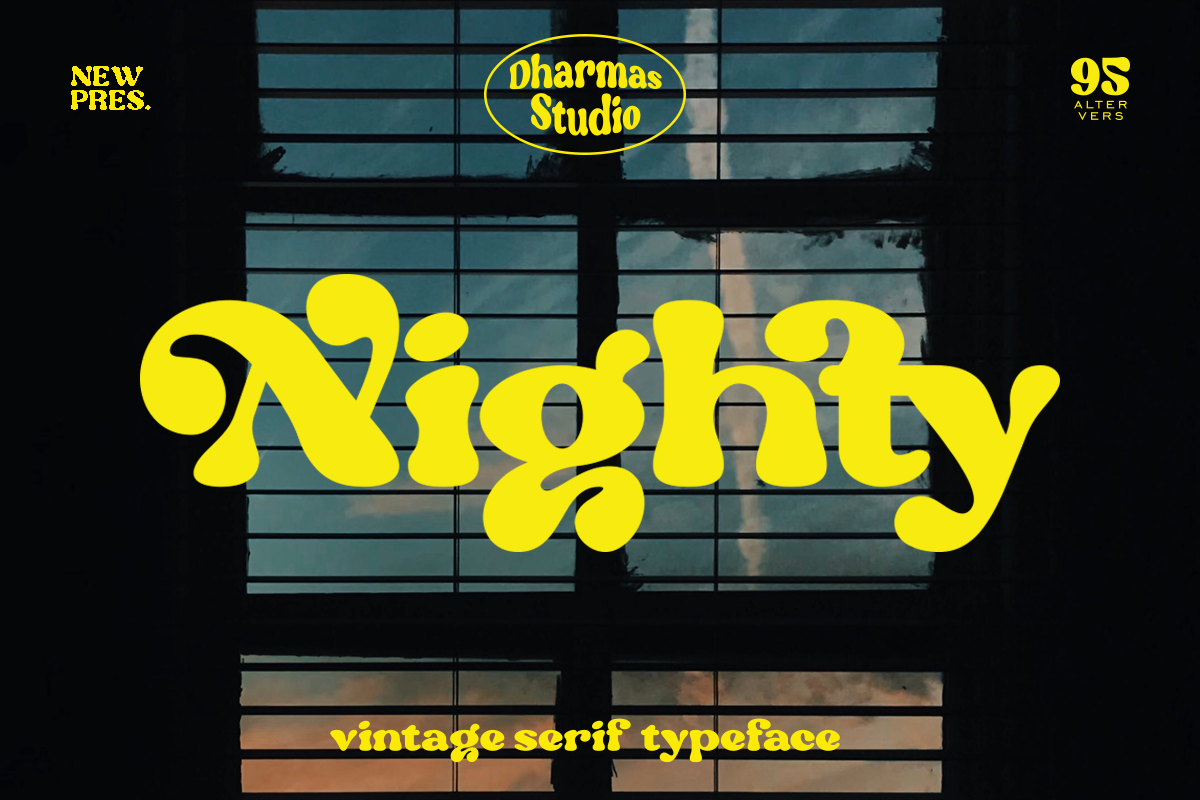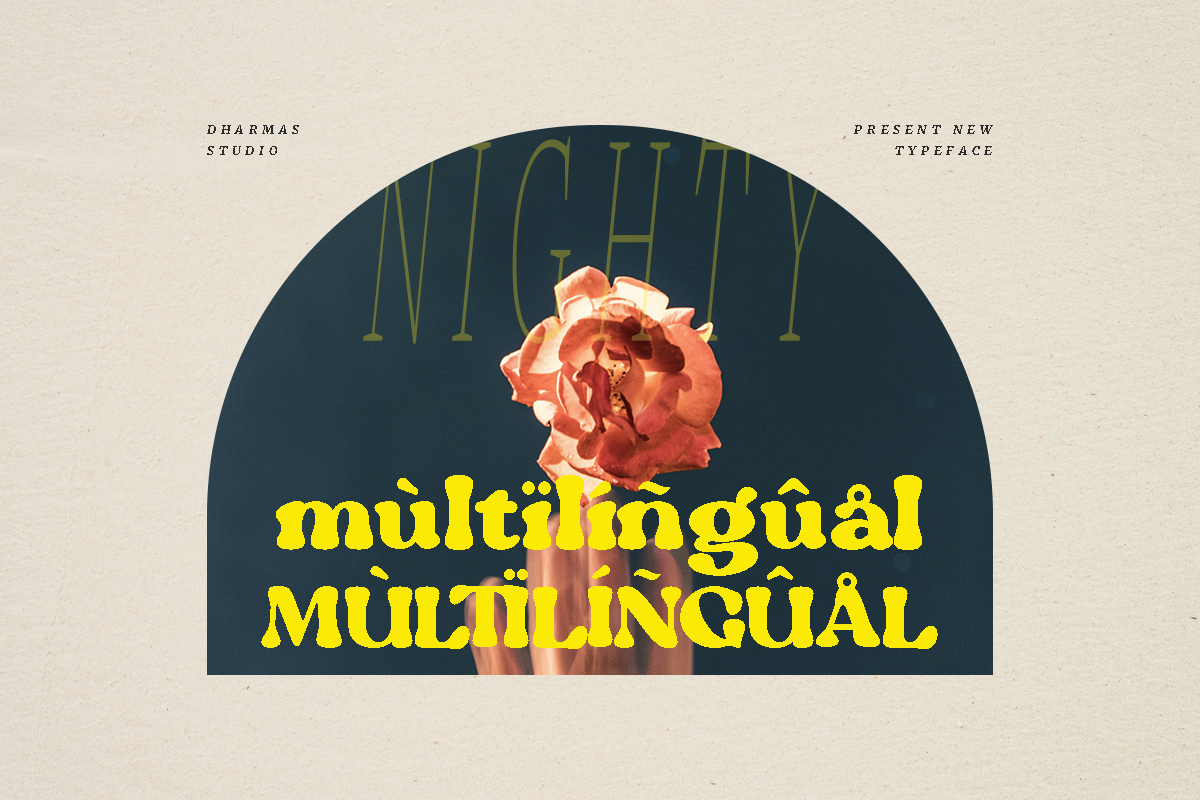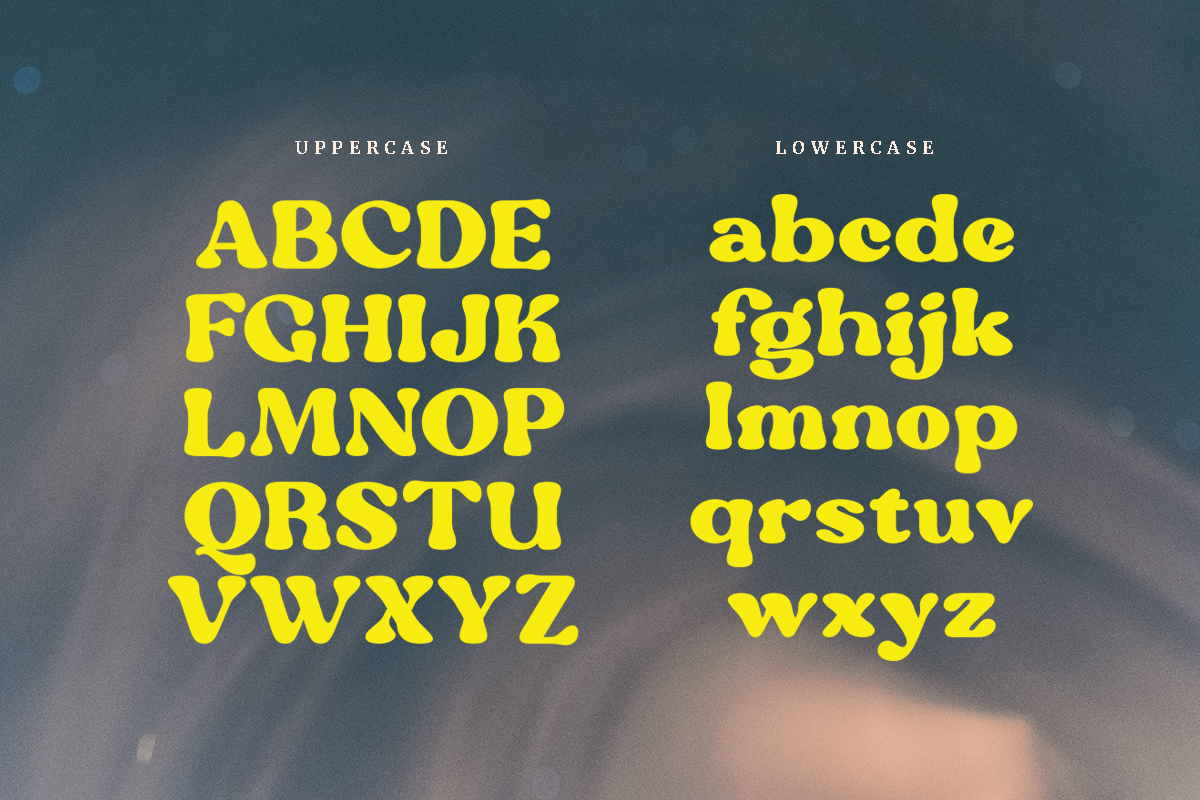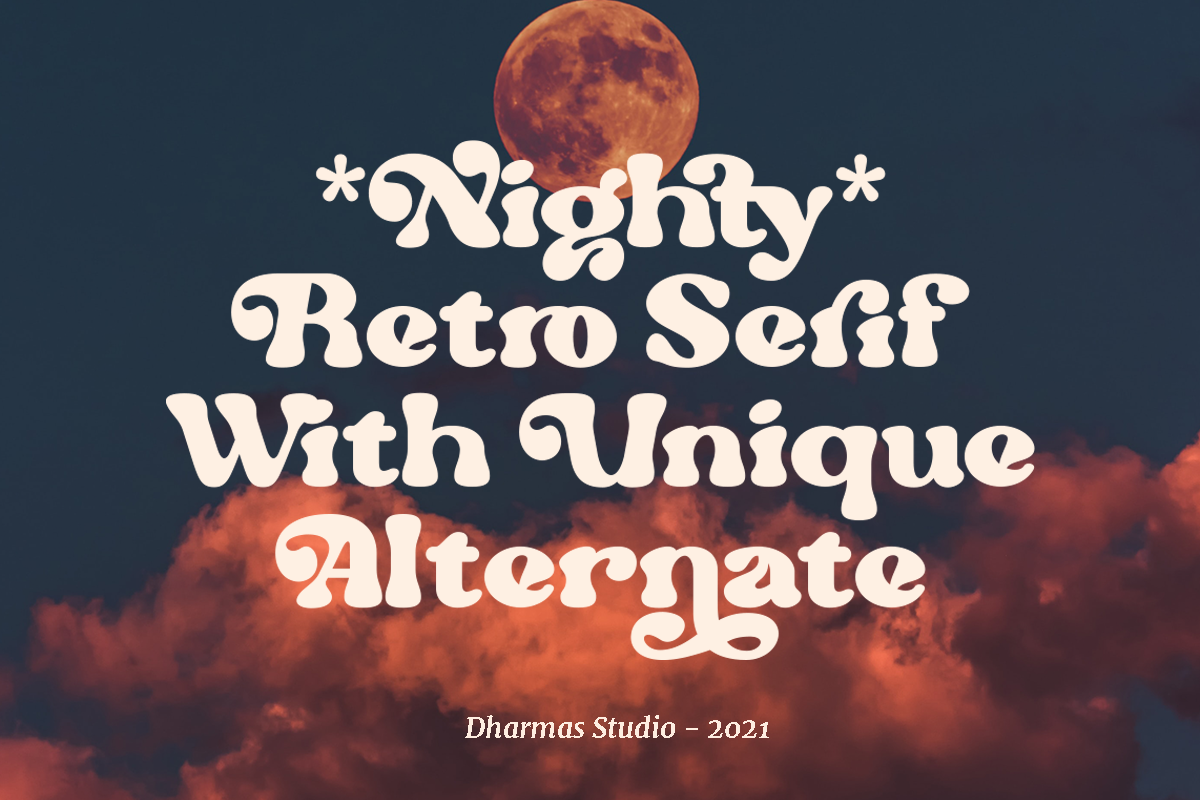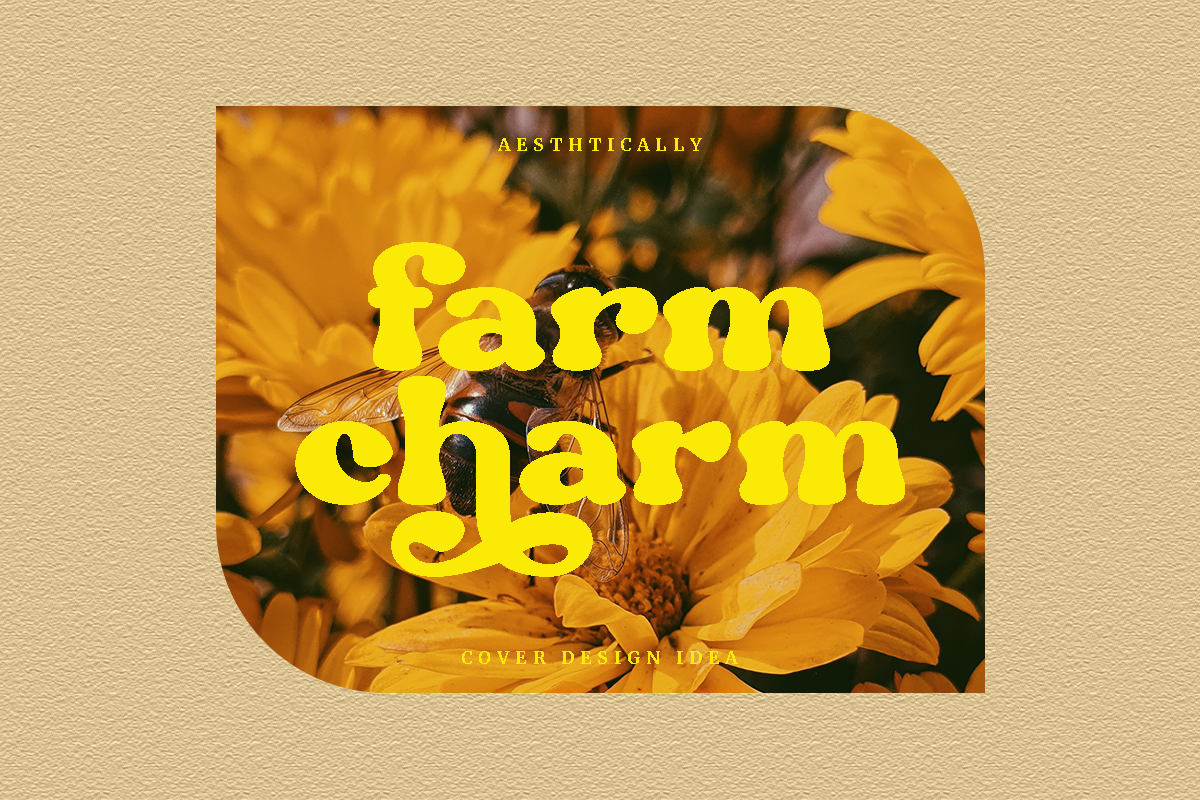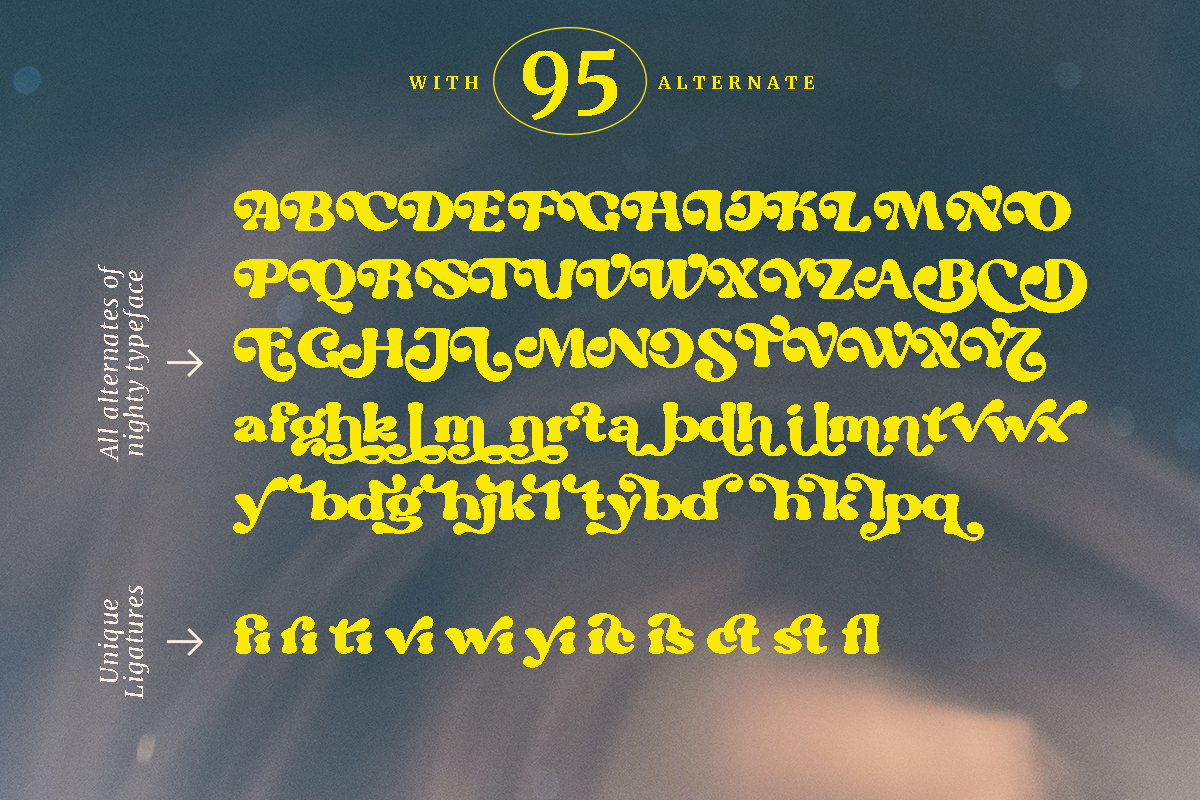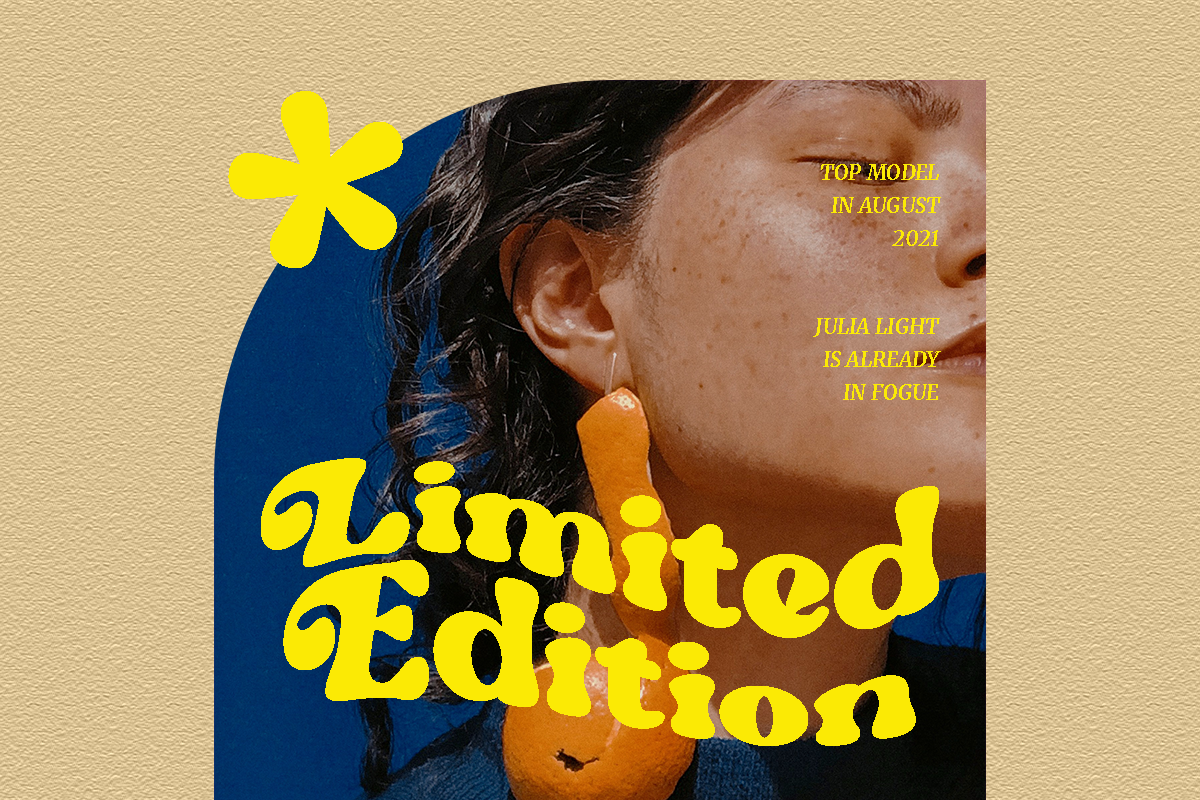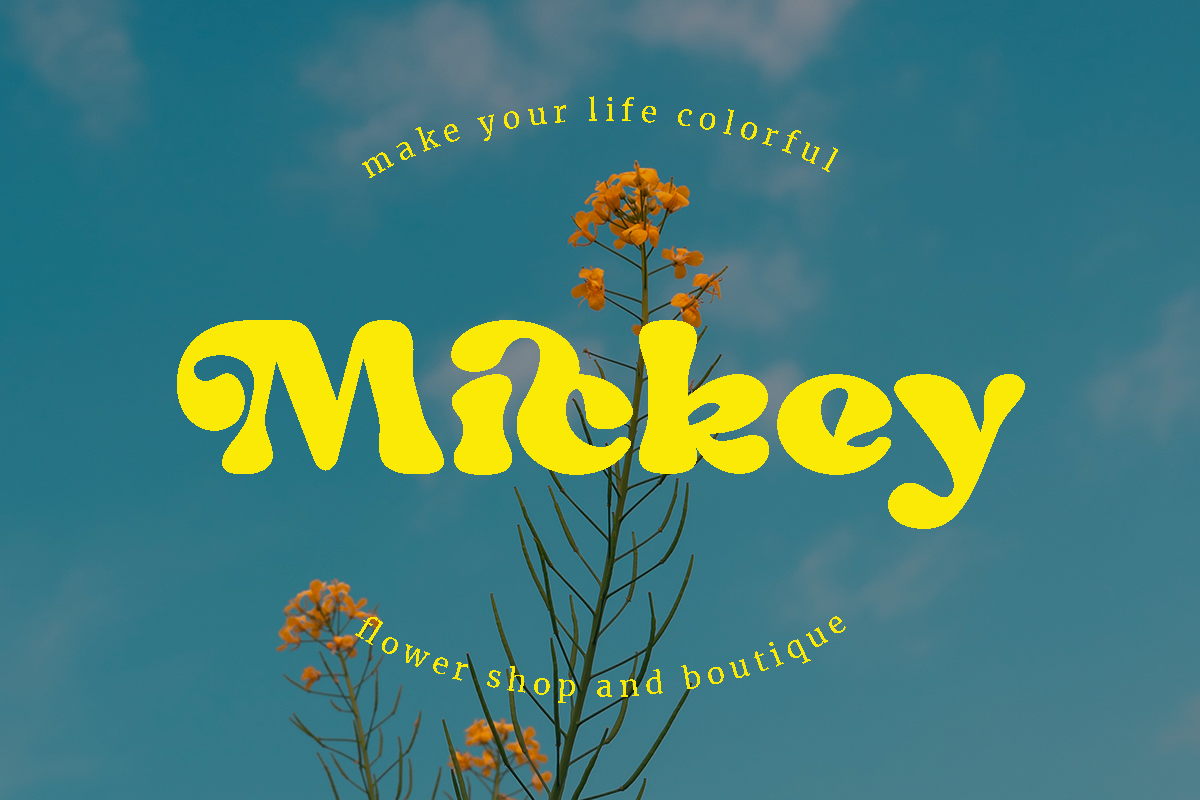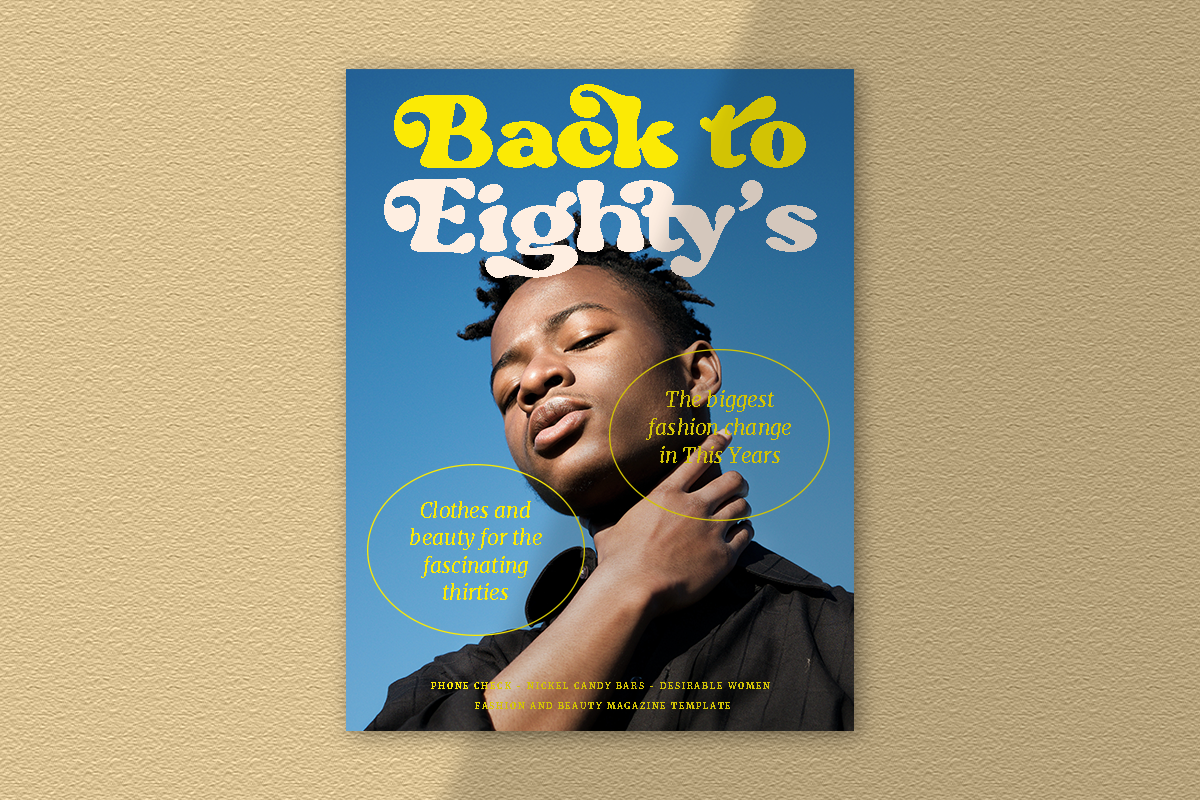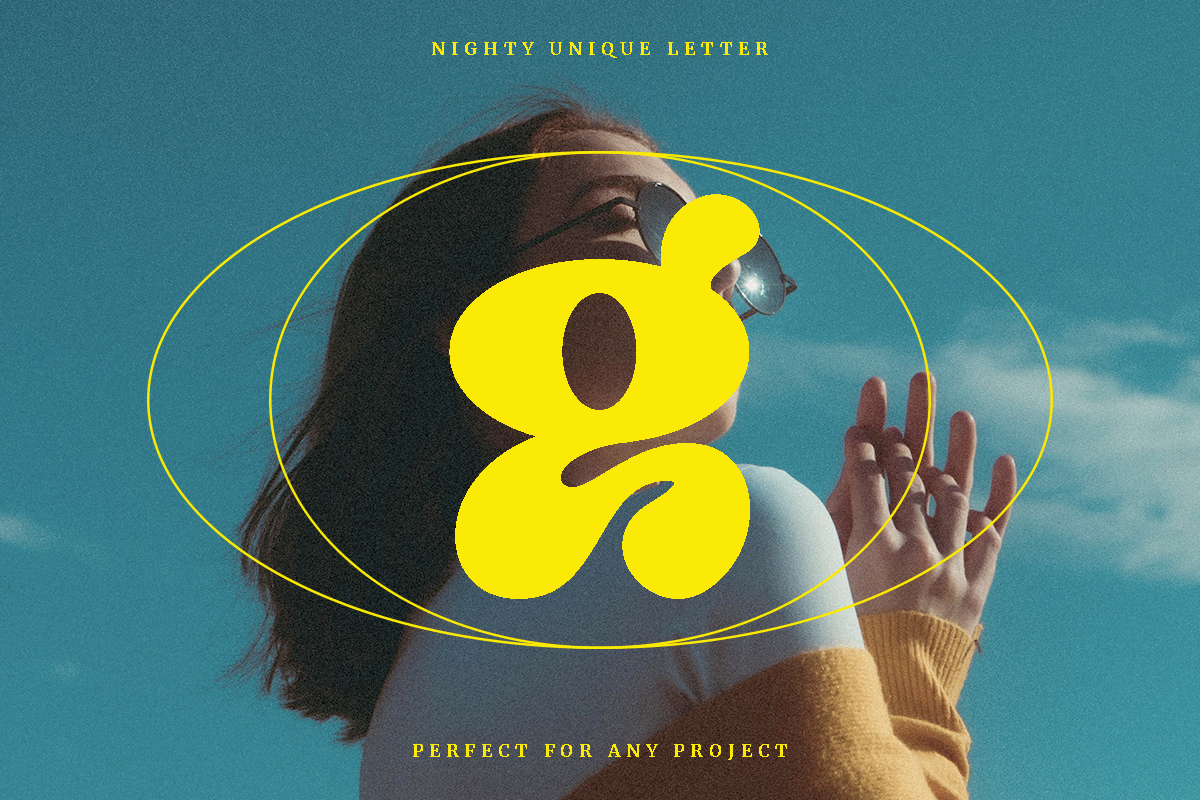
Nighty - Vintage Serif Typeface
Nighty is a display font designed for logos, branding, packaging, posters, social media graphics, editorial layouts, and merchandise. With 95+ stylistic alternates and ligatures, it offers flexible lettering options for creating distinctive typography across brand identities, product packaging, coffee shop branding, restaurant menus, invitations, book covers, labels, and digital content.
Nighty Font Features:
1 Style: Regular
95+ Stylistic Alternates and Ligatures
Letters, numbers, symbols, punctuation, special alternates
Multilingual Characters available for:
Afrikaans, Albanian, Asu, Basque, Bemba, Bena, Breton, Chiga, Cornish, Dutch, English, Estonian, Filipino, Finnish, Friulian, Galician, German, Gusii, Indonesian, Irish, Italian, Kabuverdianu, Kalenjin, Kinyarwanda, Luo, Luxembourgish, Luyia, Machame, Makhuwa-Meetto, Makonde, Malagasy, Manx, Morisyen, North Ndebele, Nyankole, Oromo, Portuguese, Quechua, Romansh, Rombo, Rundi, Rwa, Samburu, Sango, Sangu, Scottish Gaelic, Sena, Shambala, Shona, Soga, Somali, Spanish, Swahili, Swedish, Swiss.